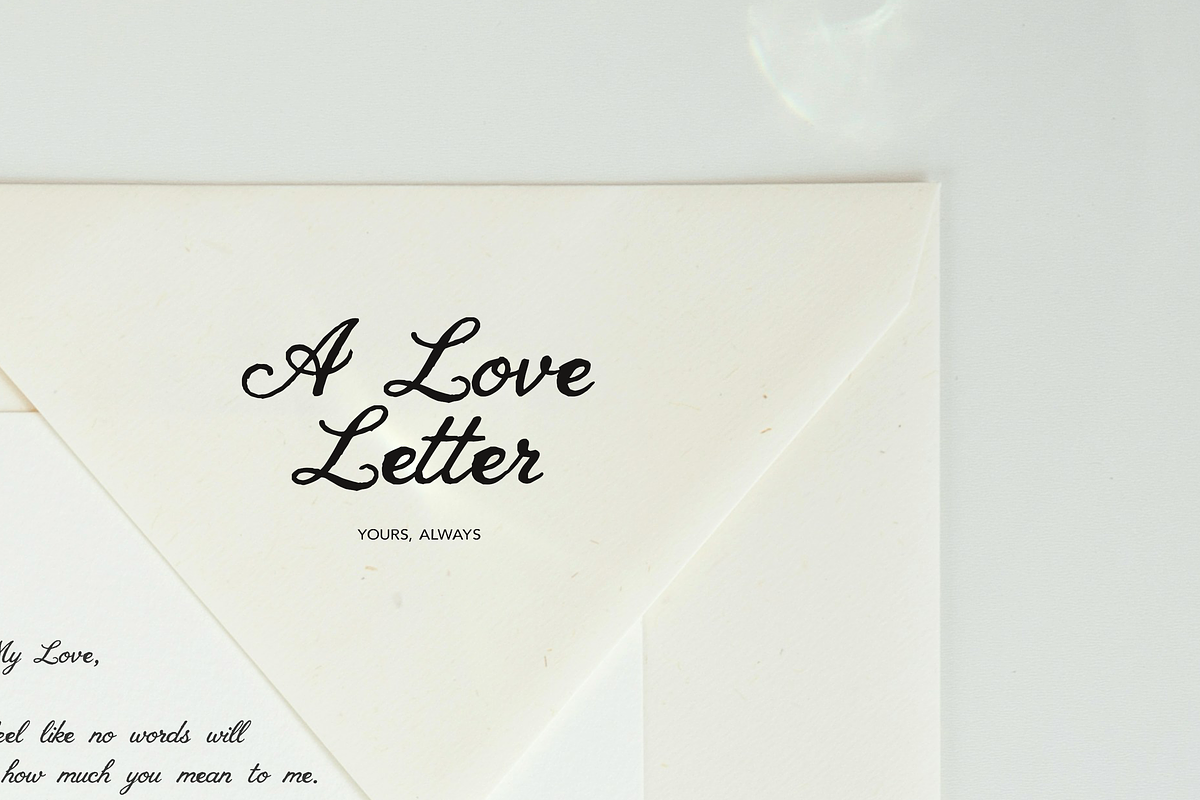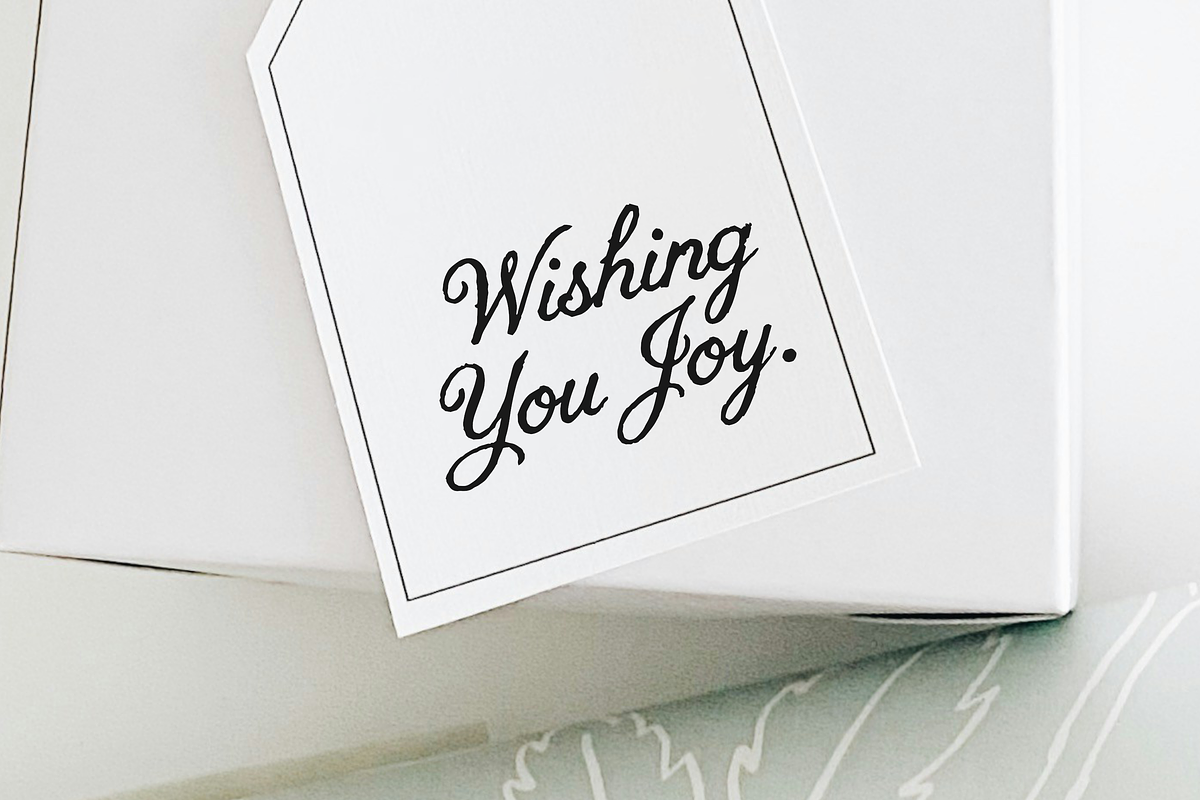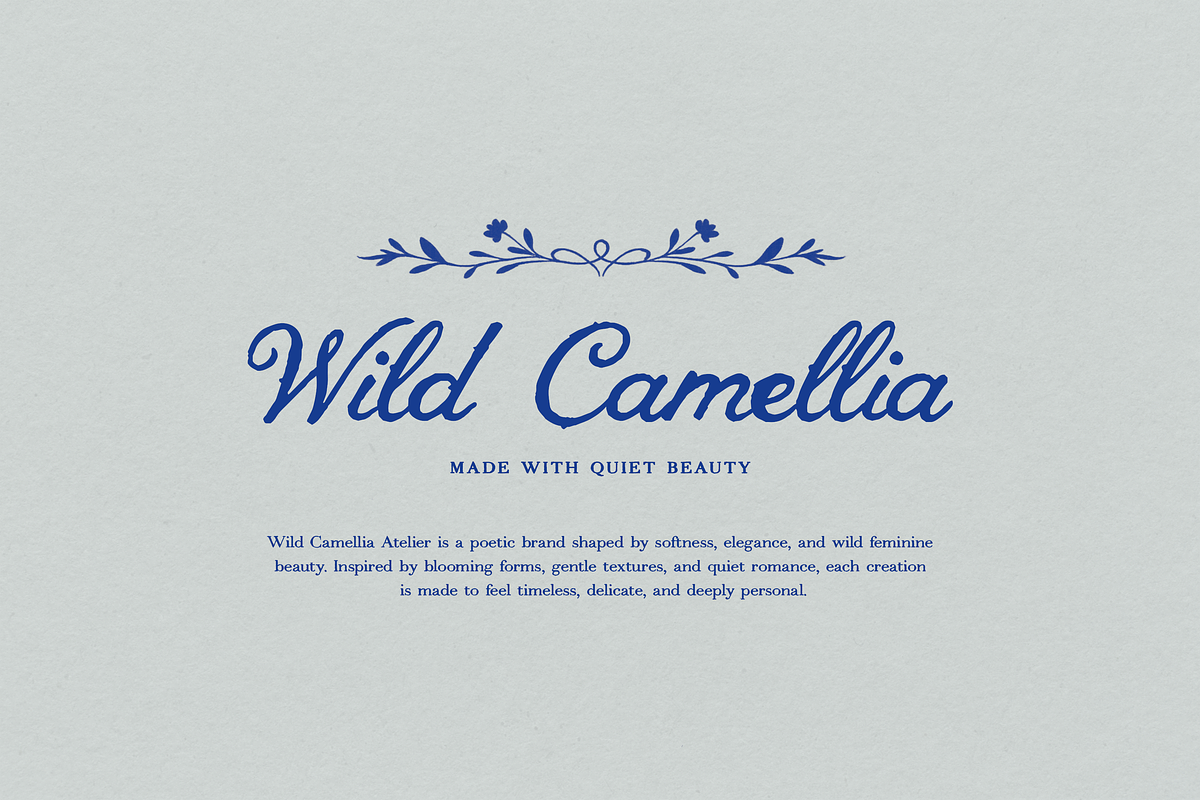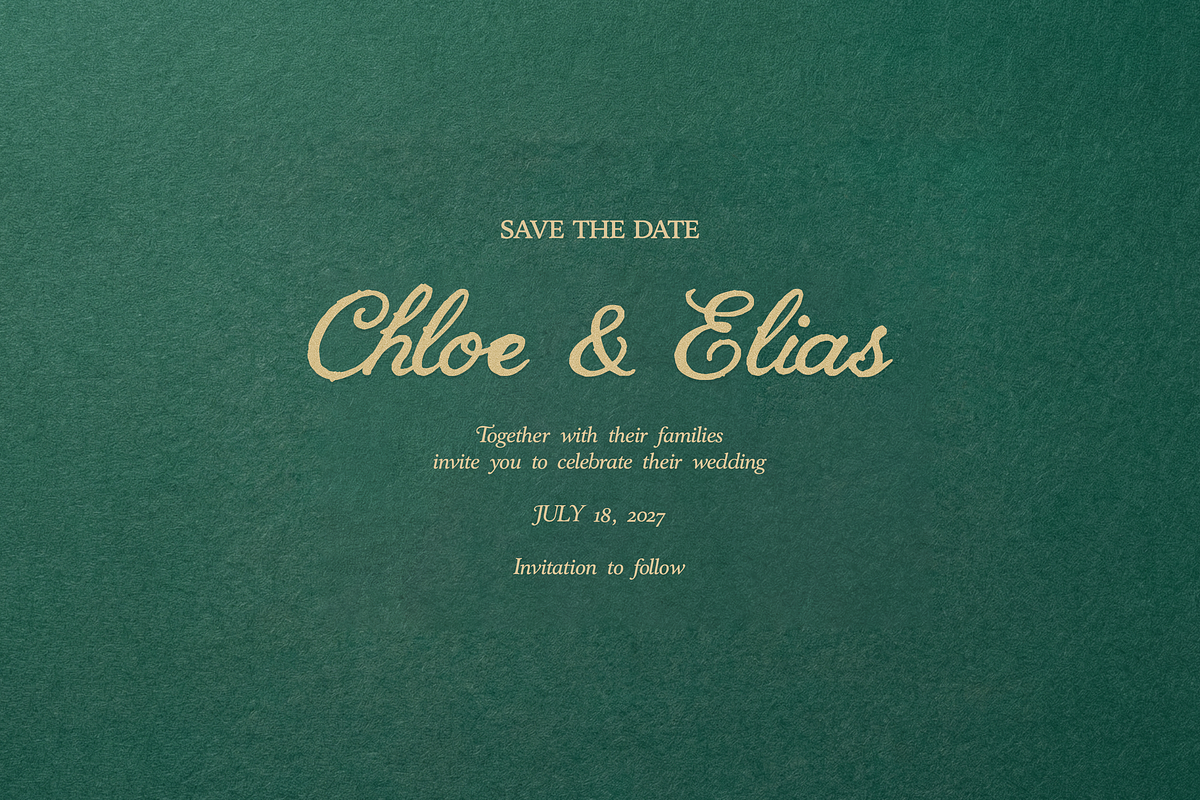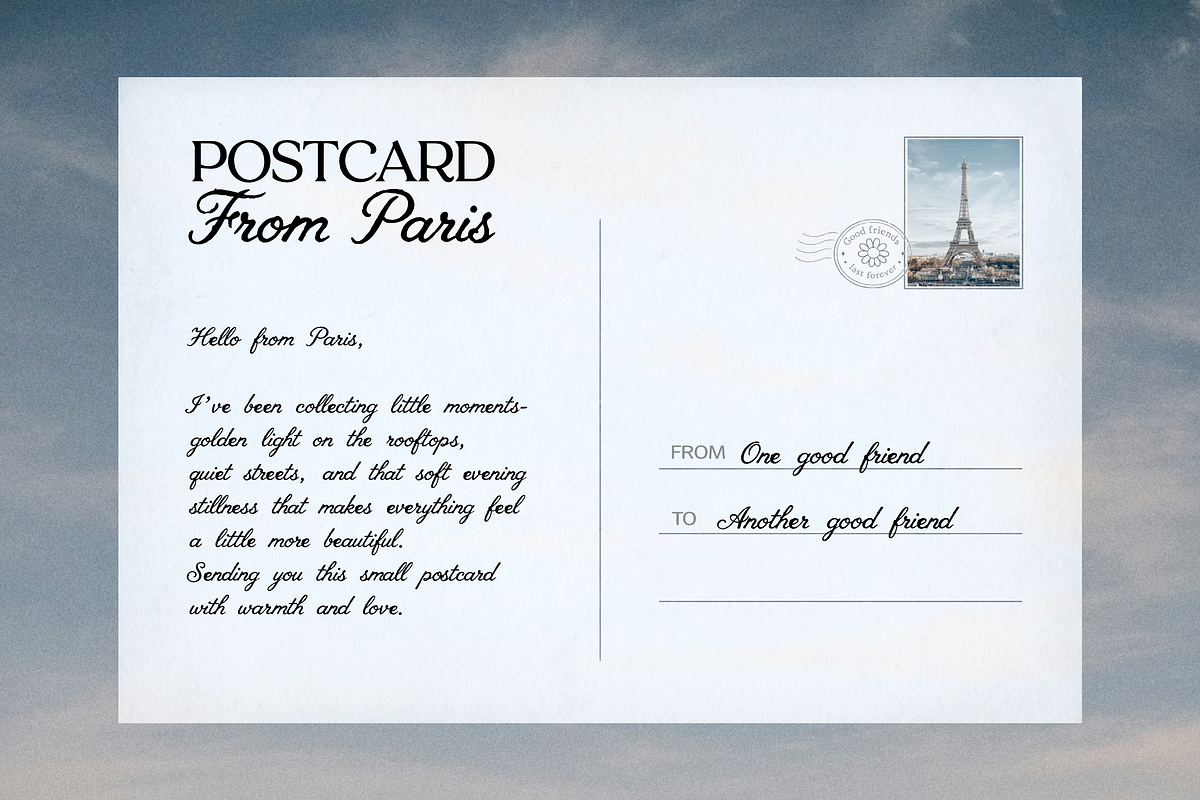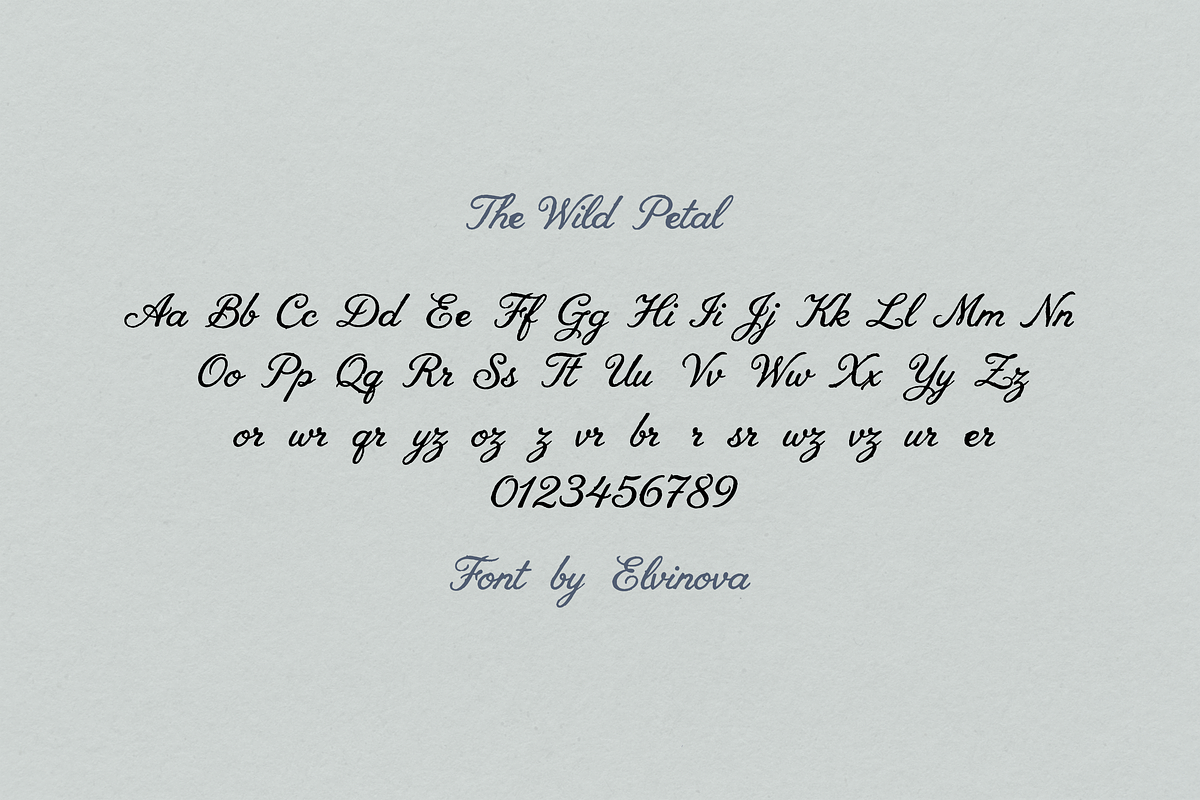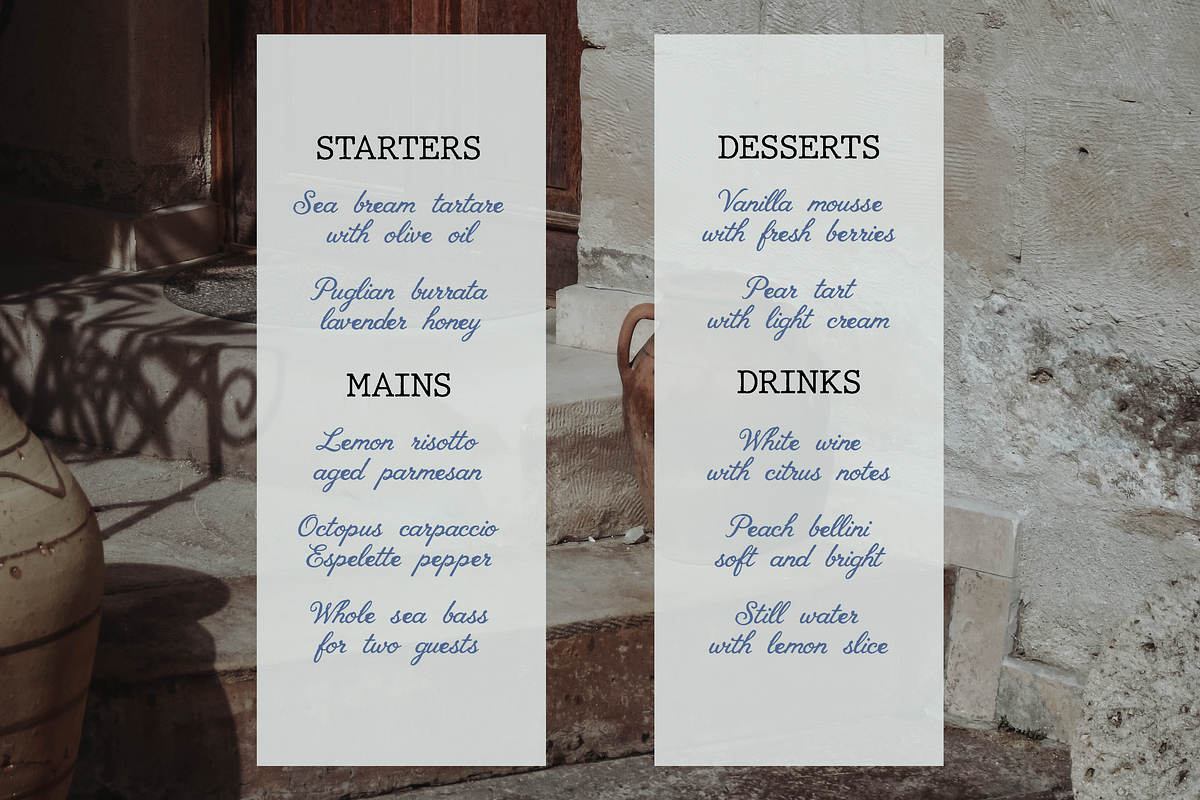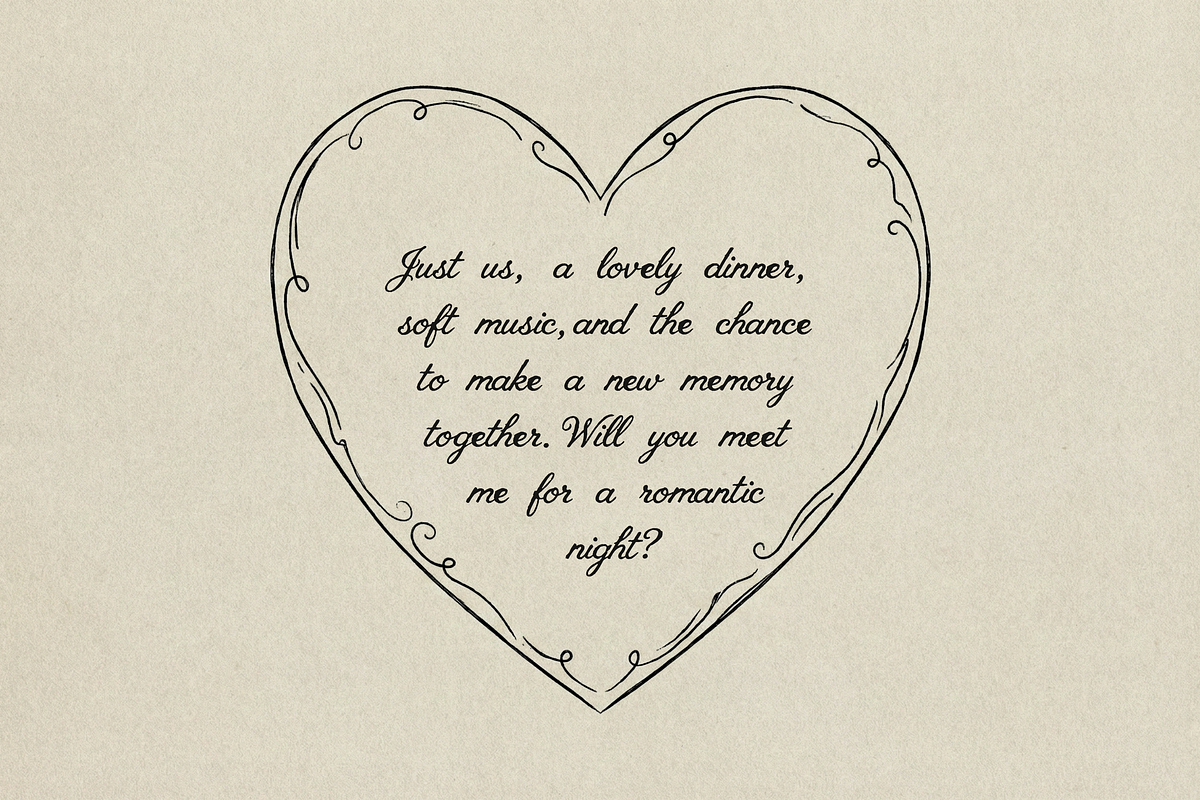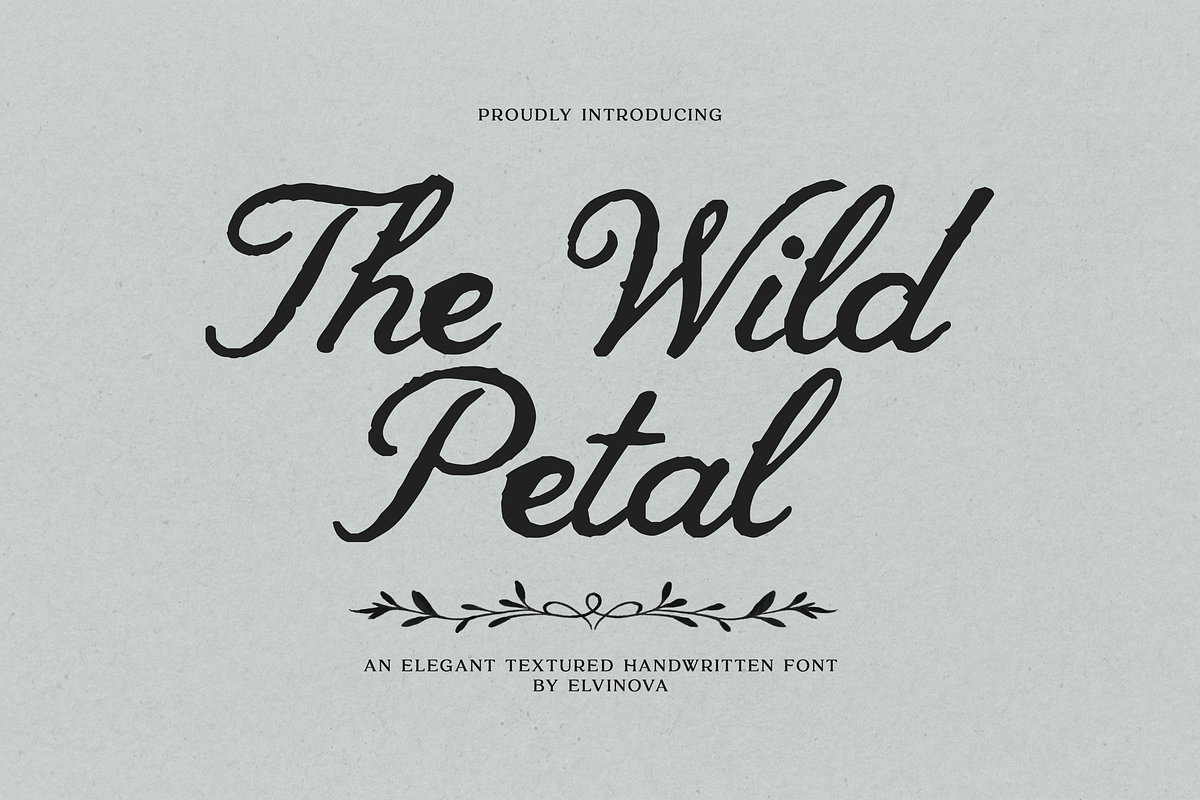
The Wild Petal | Textured Font
The Wild Petal is an elegant textured handwritten font with a romantic and expressive feel. It features flowing curves, organic strokes, and a beautifully imperfect hand-drawn texture that brings warmth and personality to every design. Perfect for wedding invitations, branding, logos, feminine packaging, social media, stationery, quotes, posters, and other creative projects that need a soft yet distinctive script style.